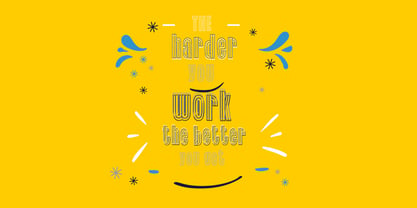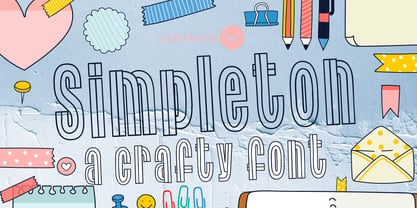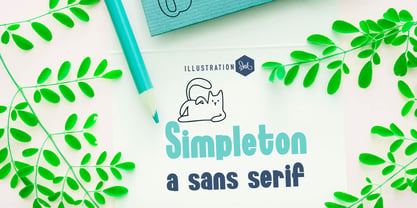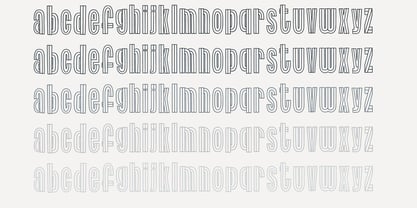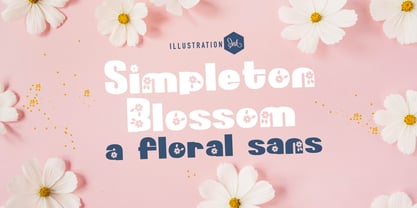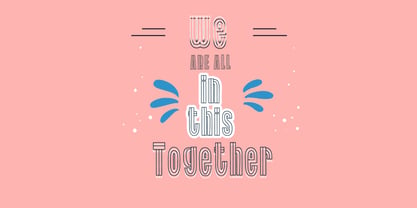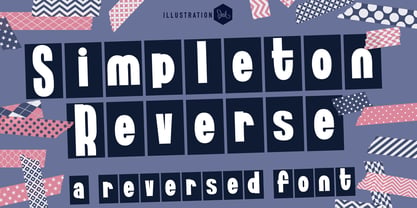
ZP Simpleton
This hand-crafted font family consists of crafty, retro-style, sans serif lettering and matching print fonts. As a bonus there is a very crafty, hand-printed, triple line font that matches the family.